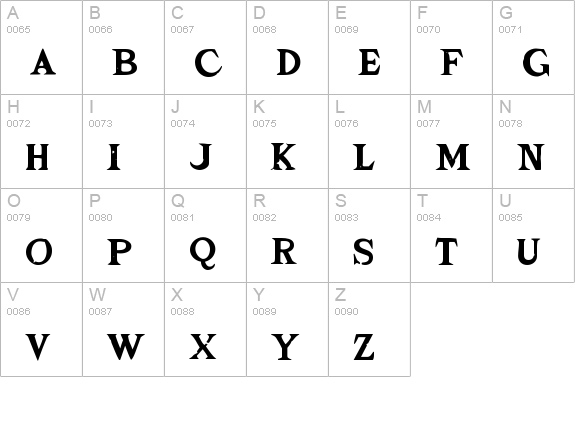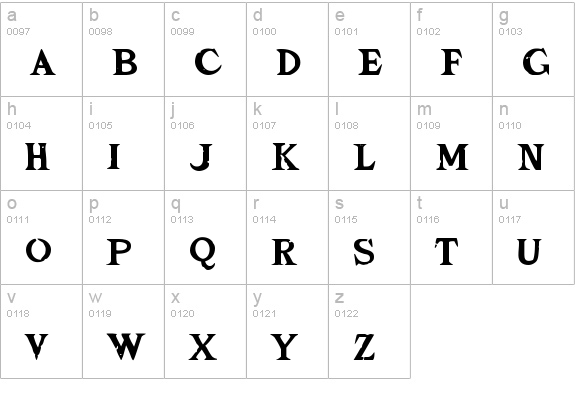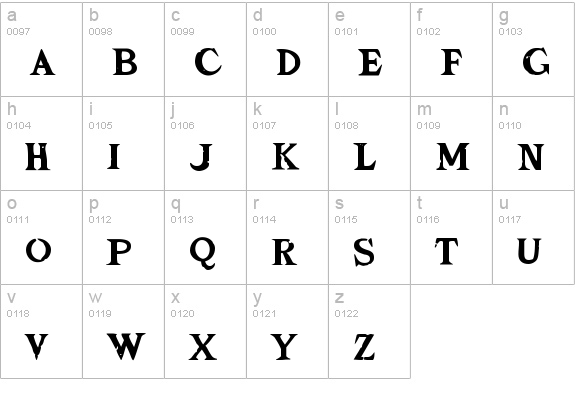
Zamora Font Details
Zamora font is a stunning display typeface that effortlessly combines elegance with a touch of modernity. Its sleek and sophisticated design makes it perfect for a wide range of creative projects, from branding to advertising to editorial design. The clean lines and sharp edges of Zamora font exude a sense of professionalism and style that will elevate any project it is used in. What's even better is that Zamora font is available for free download at FontsMarket.com. This means that you can easily access this exceptional font without any cost, making it a valuable addition to your font collection. Whether you're a professional designer or a creative enthusiast, Zamora font will surely become a go-to choice for your typographic needs. Don't miss out on the opportunity to enhance your designs with this beautiful and versatile typeface - download Zamora font today!